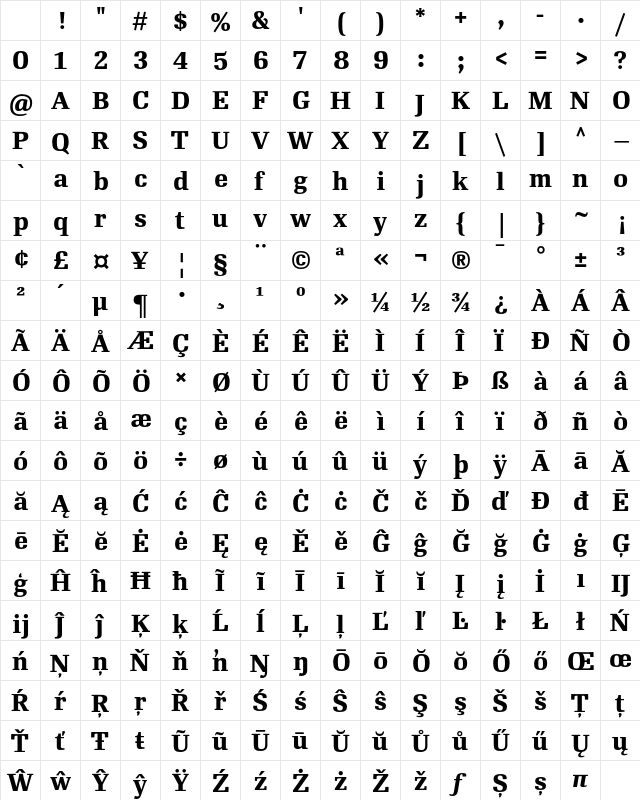
Complete RePublic Text Bold glyph index. Displaying only characters natively supported by RePublic Text Bold font.
RePublic Text is a composed and adaptable typeface that performs quietly and consistently across a wide range of design contexts. Its bold stroke weight gives it real presence on the page.